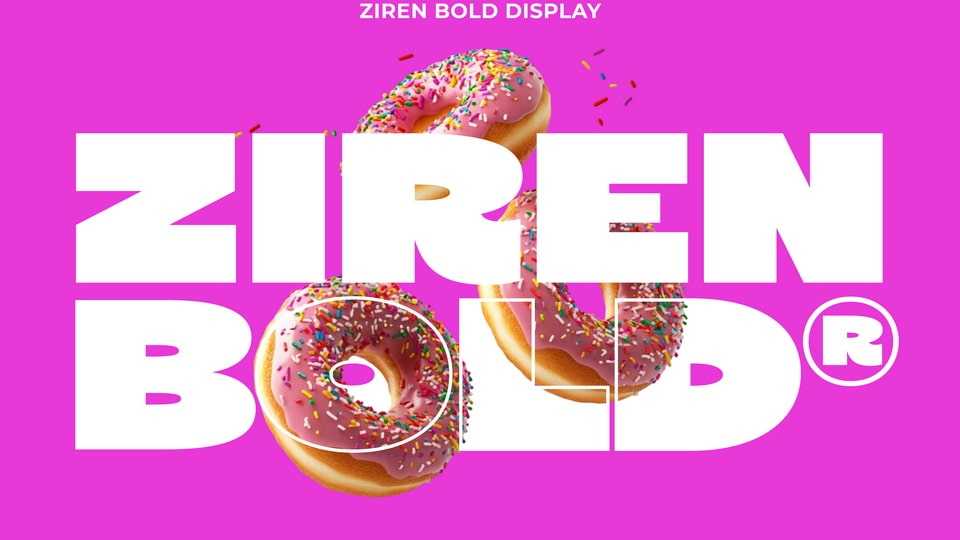
Download Ziren font, a bold modern display typeface that highlights strong, confident, and powerful letterforms with its geometric shapes and sharp cuts.